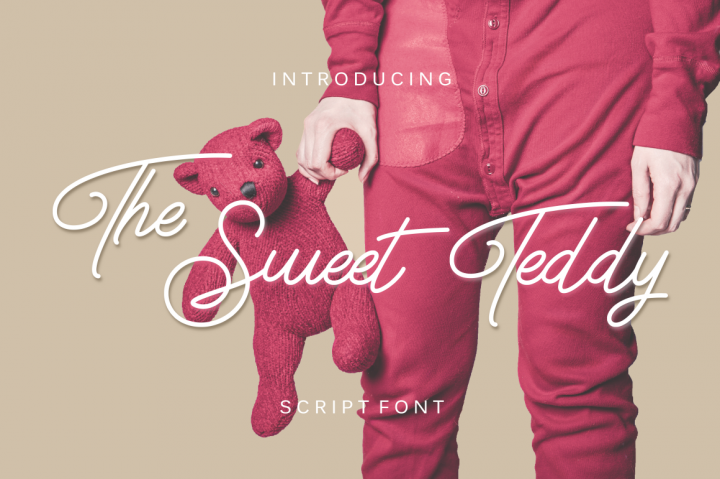
The Sweet Teddy Script
The Sweet Teddy Script Font
The Sweet Teddy is a Monoline Script font with a casual look and a signature style.
The Sweet Teddy is perfect for your upcoming projects. This script is casual and clean which makes it perfect for many designing needs such as logos, blog headers, wedding invitations, branding, t-shirts, posters & many more type of projects!
The Sweet Teddy is nice too if use it in any design style.